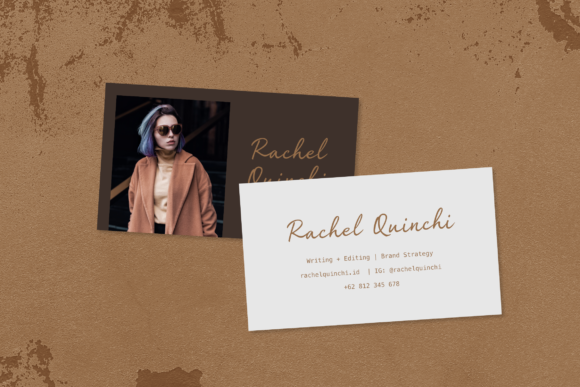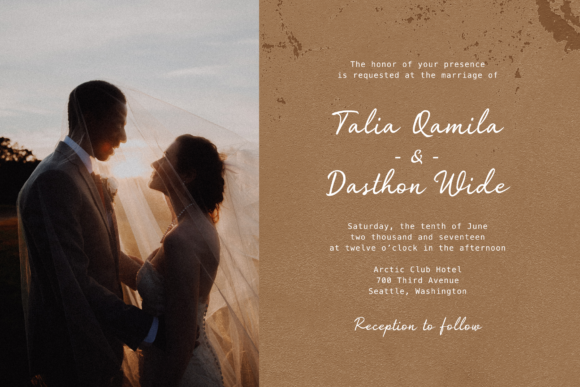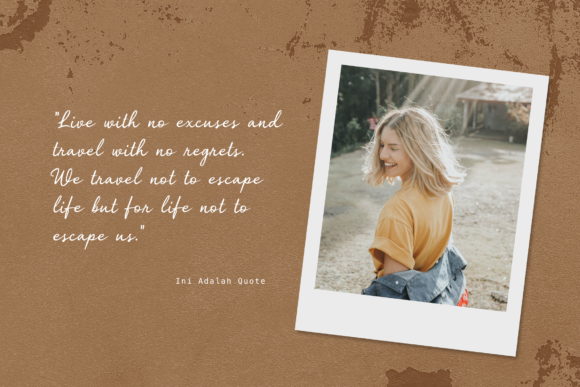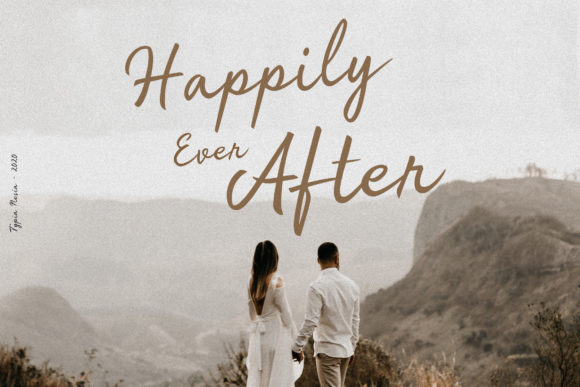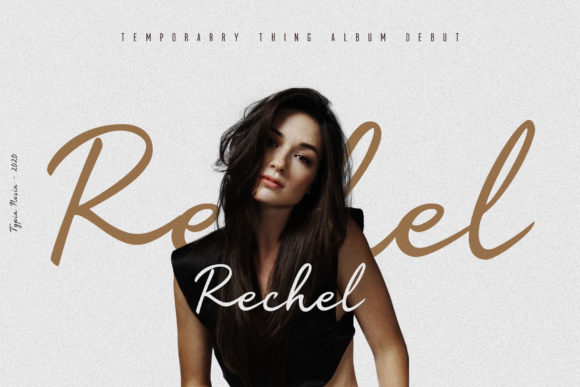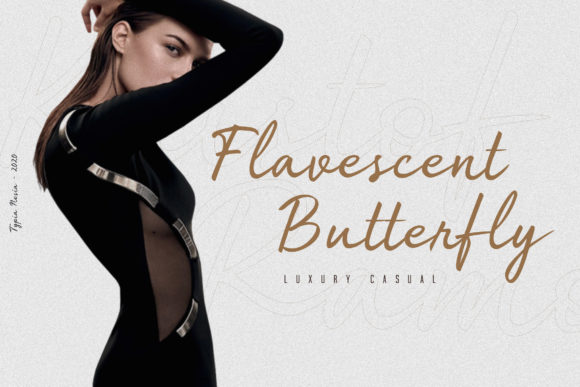
Introduction to Kristof Ramos Font
Do you remember that moment when you first started brainstorming ideas for your creative project and you knew exactly what you wanted, but couldn’t quite put your finger on the right font? The search for the perfect font can be overwhelming, but when you stumble upon the perfect match, it’s like a breath of fresh air. For many designers, this moment of triumph is what makes all the hard work worth it. And for those who are lucky enough to have found it, the Kristof Ramos Font is a true gem.
With its delicate, timeless handwriting style, the Kristof Ramos Font is a versatile design resource that can elevate any project. Whether you’re designing wedding invitations, thank you cards, quotes, or logos, this high-quality font is sure to add a touch of elegance and sophistication. And the best part? It’s free to download, making it an accessible resource for designers of all levels.
Key Features of Kristof Ramos Font
- High-quality font designed for creative projects, available for free download as a design resource.
- Comes with a transparent background, ideal for use in graphics, logos, and other visual elements.
- Features a unique, modern design with a clear and legible font style, making it suitable for a wide range of applications.
- Includes a comprehensive character set, including uppercase and lowercase letters, numbers, and punctuation marks.
Honest Review: Kristof Ramos Font
As a designer, I’m always on the lookout for high-quality design resources to enhance my creative projects. The Kristof Ramos Font caught my attention due to its unique style and free download option.
What works well about this font is its versatility. I’ve used it for both text-heavy projects and logo designs, and it always looks great. The transparent background feature is also a plus, allowing me to easily layer it over other design elements. ✨
The font comes in several weights and styles, making it easy to find the perfect fit for your project. The high-quality design ensures that it looks great at any size, from large headings to small body text.
However, I do have a few limitations to note: ⚠️
- The font may not be suitable for very small text sizes, as it can become difficult to read.
- Some users may find the unique style a bit too bold or overpowering.
Overall, I’m impressed with the Kristof Ramos Font and would definitely recommend it as a design resource for creative projects. Its high quality, versatility, and free download option make it a great addition to any designer’s toolkit.
Kristof Ramos Font is a high-quality design resource ideal for creative projects requiring a unique touch. This font offers a transparent background, making it perfect for various applications.
Tips for Getting the Most Out of Kristof Ramos Font
For the best results, use Kristof Ramos Font in combination with other design elements to create a cohesive look. Experiment with different font sizes, colors, and arrangements to find the perfect balance.
Kristof Ramos Font is ideal for various creative projects, including:
- Graphic design and visual identity
- Print and digital marketing materials
- Editorial and publishing projects